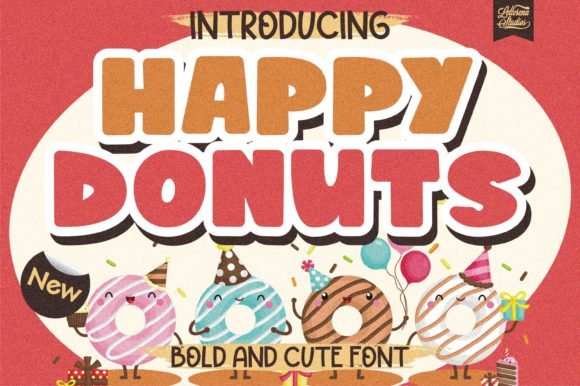
The Sweetest Typographic Treat: Happy Donuts Font
Remember that moment when you stumbled upon the perfect font, and your creative project suddenly came to life? It’s a feeling designers know all too well. For those seeking a playful, eye-catching typeface, we’re thrilled to introduce the Happy Donuts Font – a delightful display font designed to bring joy and whimsy to your designs.
This charming font boasts chunky letters and a bold, cute aesthetic that’s perfect for a wide range of projects, from logos and branding to homeware designs, product packaging, and more. With the Happy Donuts Font, designers can add a touch of personality and visual interest to their work, making it a valuable addition to any typography collection.
- Font Family: Happy Donuts Font is a unique, hand-drawn font designed for creative and playful purposes.
- Character Set: The font includes a wide range of characters, including uppercase and lowercase letters, numbers, and punctuation marks.
- Unique Characteristics: The font’s hand-drawn style and playful feel make it ideal for creating eye-catching and whimsical designs, such as food packaging, children’s products, and advertising materials.
Happy Donuts Font Review
Overall, I’m impressed with the playful and cheerful vibe of the Happy Donuts Font. It’s perfect for capturing the whimsy and fun of a donut shop or a bakery. ✨ The font’s rounded edges and bubbly texture make it feel like a sweet treat.
The font’s versatility is another major plus. It’s suitable for a wide range of applications, from signage to packaging to marketing materials. ✨ I can easily see it being used for social media graphics, advertisements, or even children’s book illustrations.
However, there are some limitations to consider. ⚠️ The font may not be ideal for formal or professional settings, as it can come across as too playful or childish. Additionally, the font’s texture may not be suitable for small text sizes, as it can become difficult to read.
Here are some specific things that work well and some areas for improvement:
- Playful and cheerful vibe: Perfect for donut shops, bakeries, or any other fun and lighthearted brand.
- Highly versatile: Suitable for a wide range of applications, from signage to packaging to marketing materials.
- Easy to read: Despite its playful texture, the font is still easy to read, even in larger sizes.
- Limited to informal settings: May not be suitable for formal or professional settings.
- Texture may not be suitable for small text sizes: Can become difficult to read in smaller sizes.
Overall, I would recommend the Happy Donuts Font for any brand that wants to convey a sense of fun and playfulness. Just be sure to use it in the right context to get the most out of its charm.
The Happy Donuts font is perfect for:
- Cake and dessert labels
- Food truck or restaurant signage
- Children’s party invitations or decorations